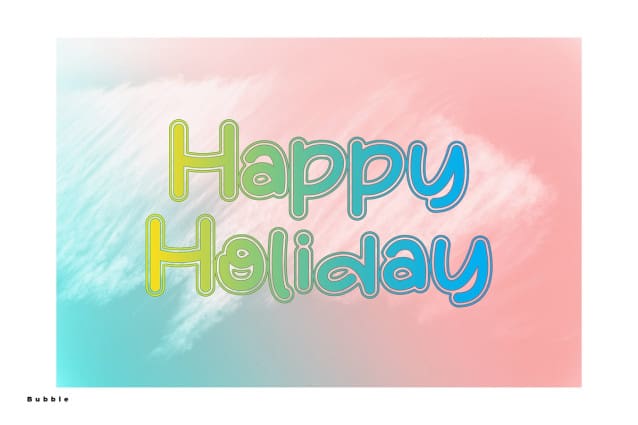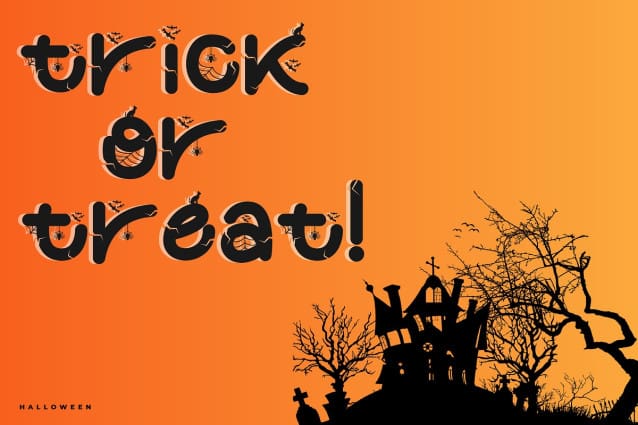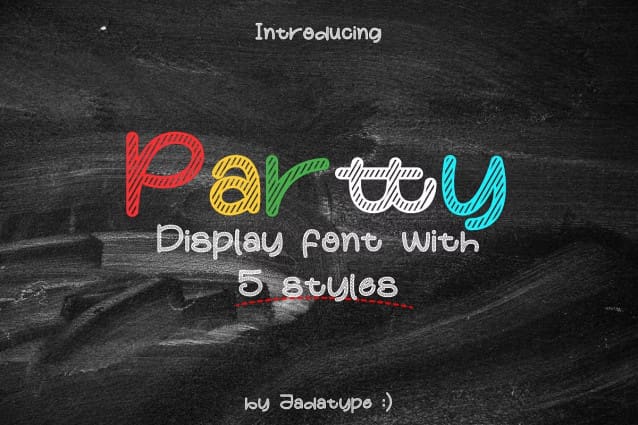
Partty Display Font
Partty Display Font is a display font with 5 Styles. you can use each style for your Christmas, Halloween, display, branding, social media needs, and others. contains standard English letters and some support multilingual. can be installed in applications such as adobe family, affinity, and similar applications.